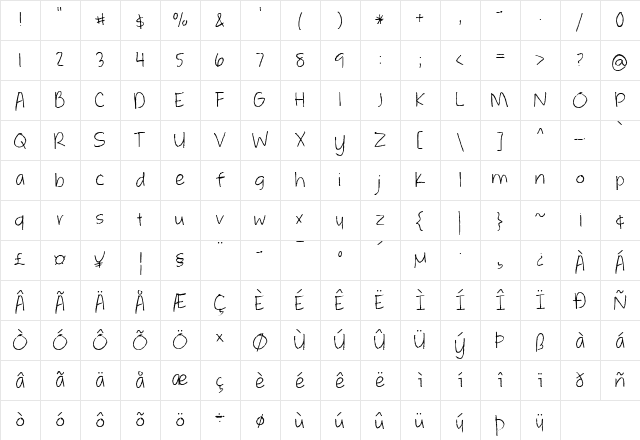
whatever it takes Regular Free Font
whatever it takes Regular
Foundry: Brittney Murphy
Designer: Brittney Murphy
Design Context for whatever it takes
whatever it takes is a composed and adaptable typeface that performs quietly and consistently across a wide range of design contexts.